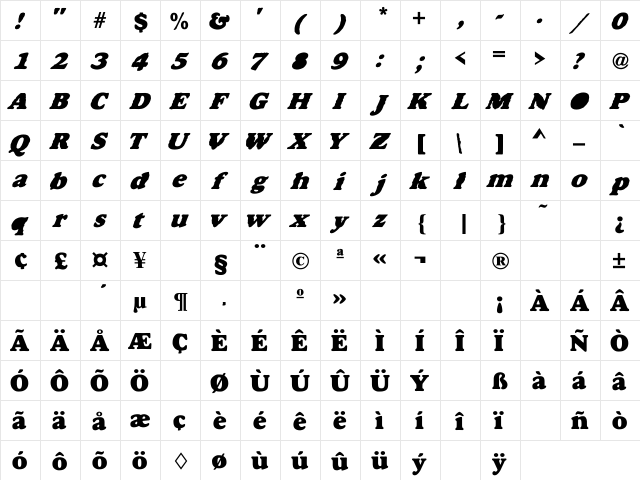
Heavy Cat Regular
Design Context for Heavy Cat Typeface
Heavy Cat offers clean, dependable letterforms without strong stylistic allegiance, making it a practical choice for designers who need flexibility.
Pro Tip: Pair Heavy Cat with a font of contrasting weight or personality to build a more expressive typographic hierarchy.